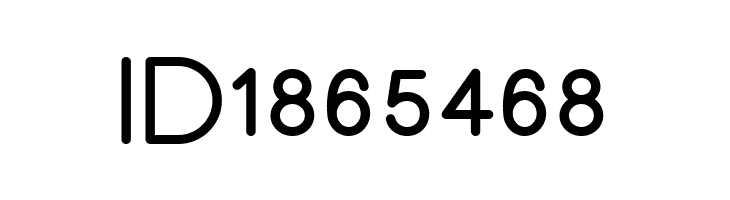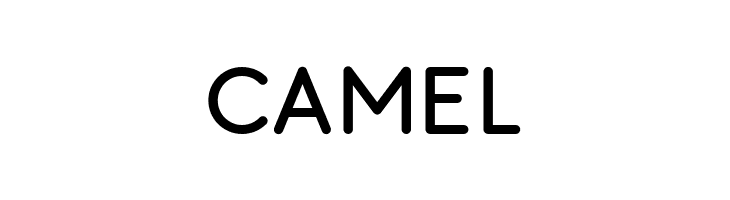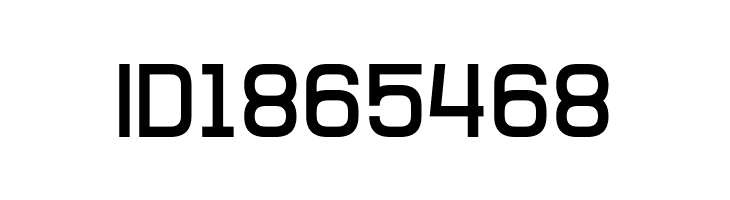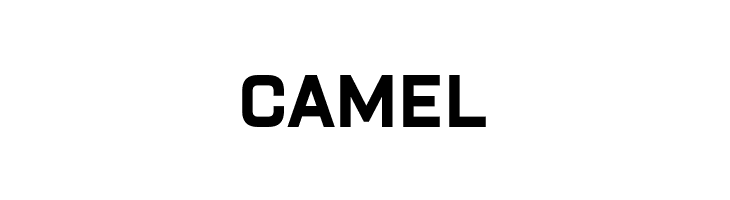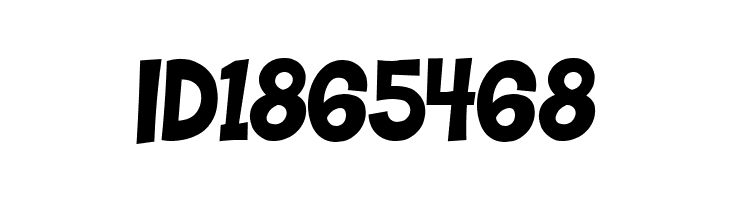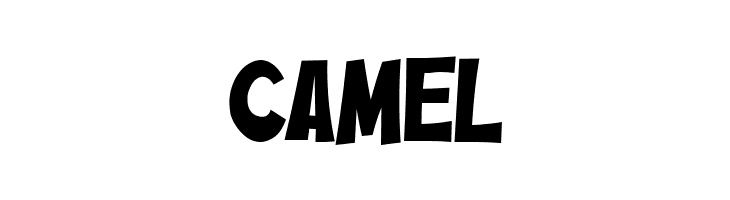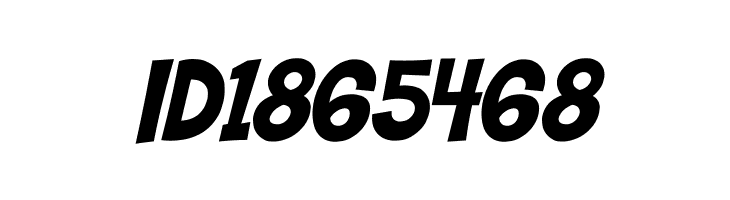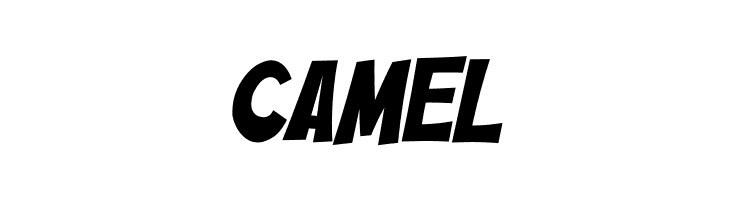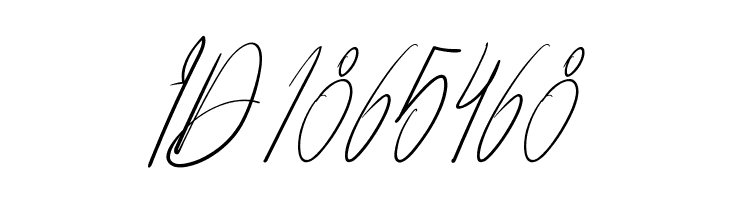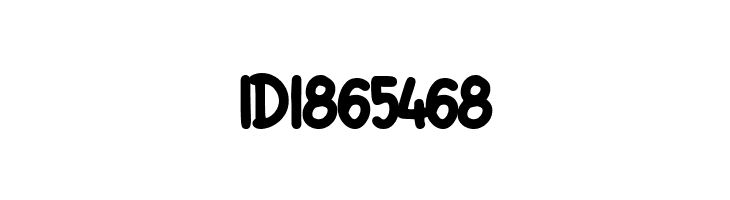
A modern, rounded sans-serif font with clean lines and uniform stroke width.
A playful, bold font with rounded, thick strokes and a whimsical touch.
A bold, geometric font with a futuristic and digital aesthetic.
A bold, geometric font with a futuristic and industrial aesthetic.
A sophisticated, cursive script font with elegant, flowing lines.
A bold, modern font with geometric lines and a cohesive, balanced design.
A bold, outlined decorative font with a strong, three-dimensional effect.
A bold, slab serif font with a vintage and authoritative style.
A bold, playful font with exaggerated curves and a dynamic style.
A bold, italic font with a dynamic and playful style.